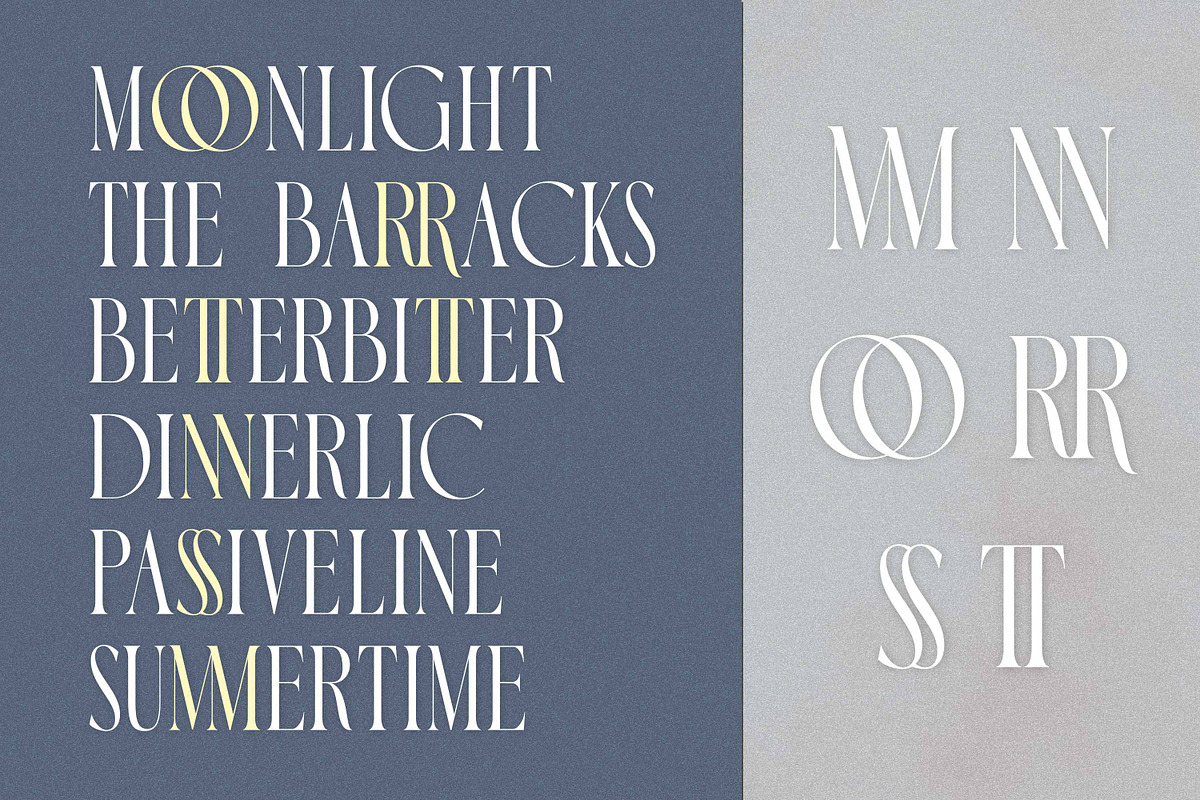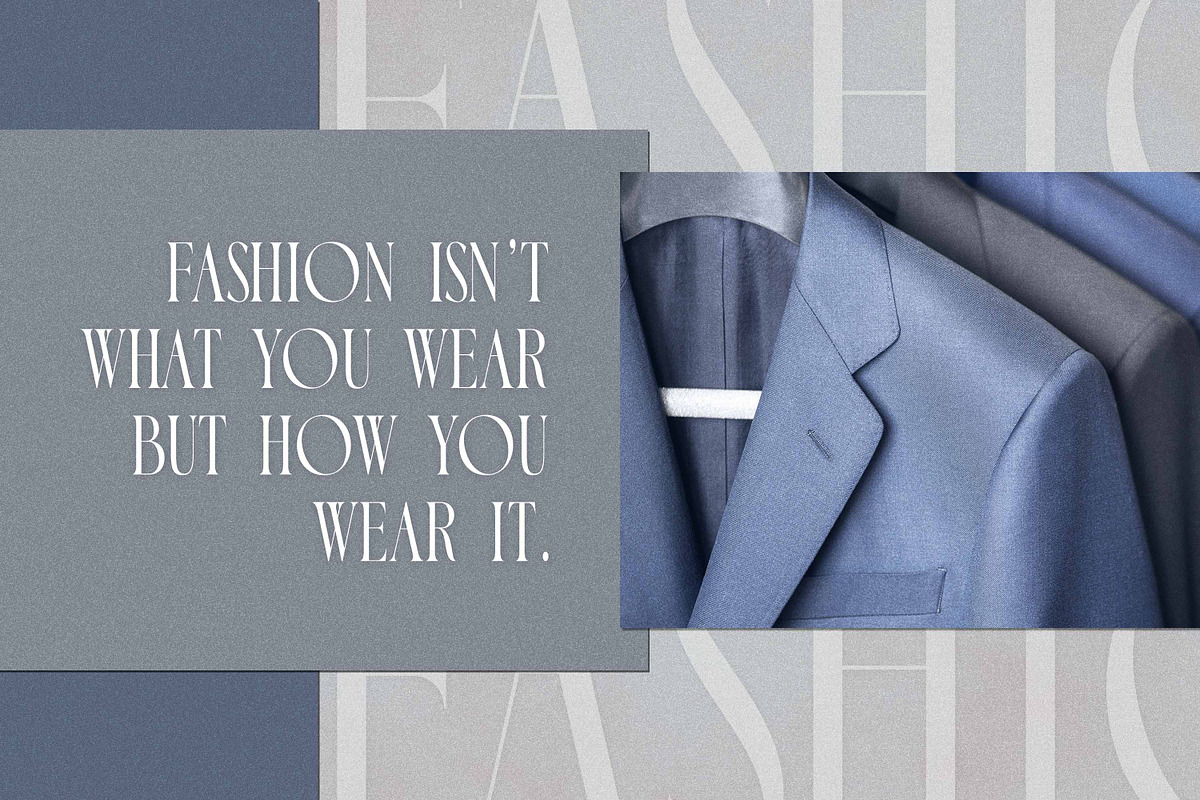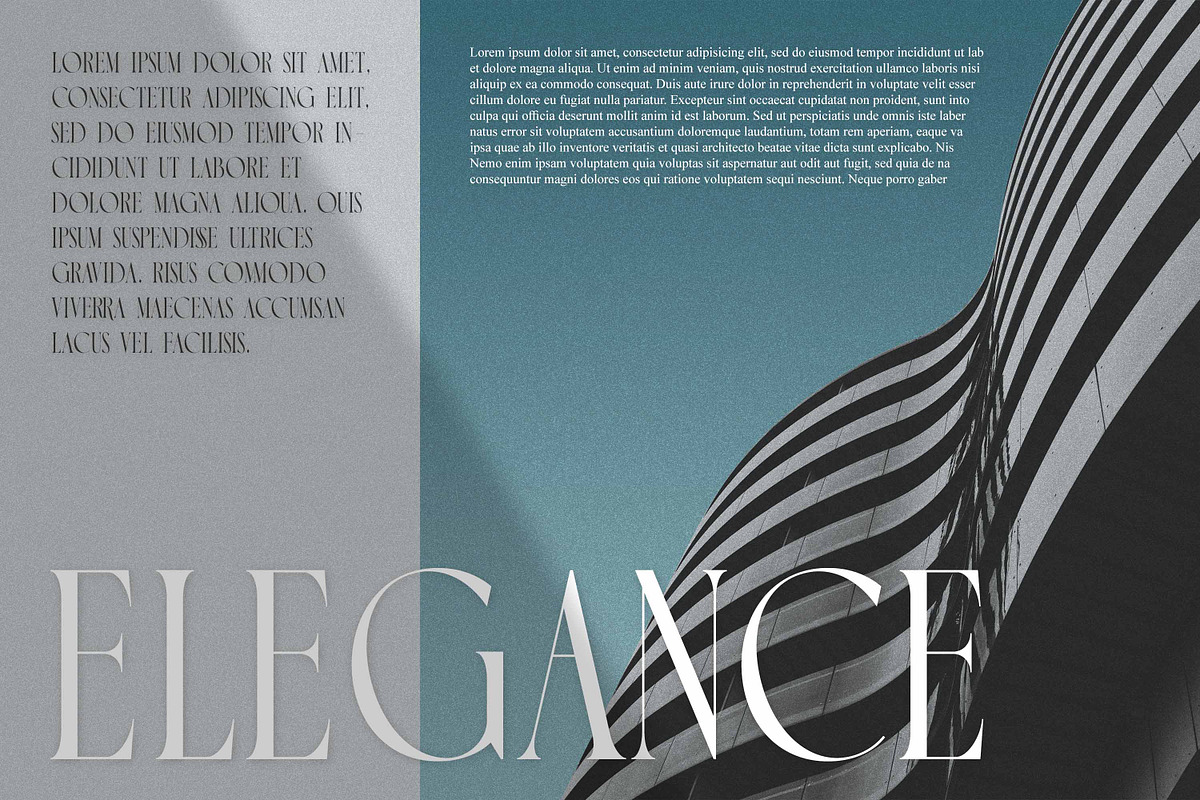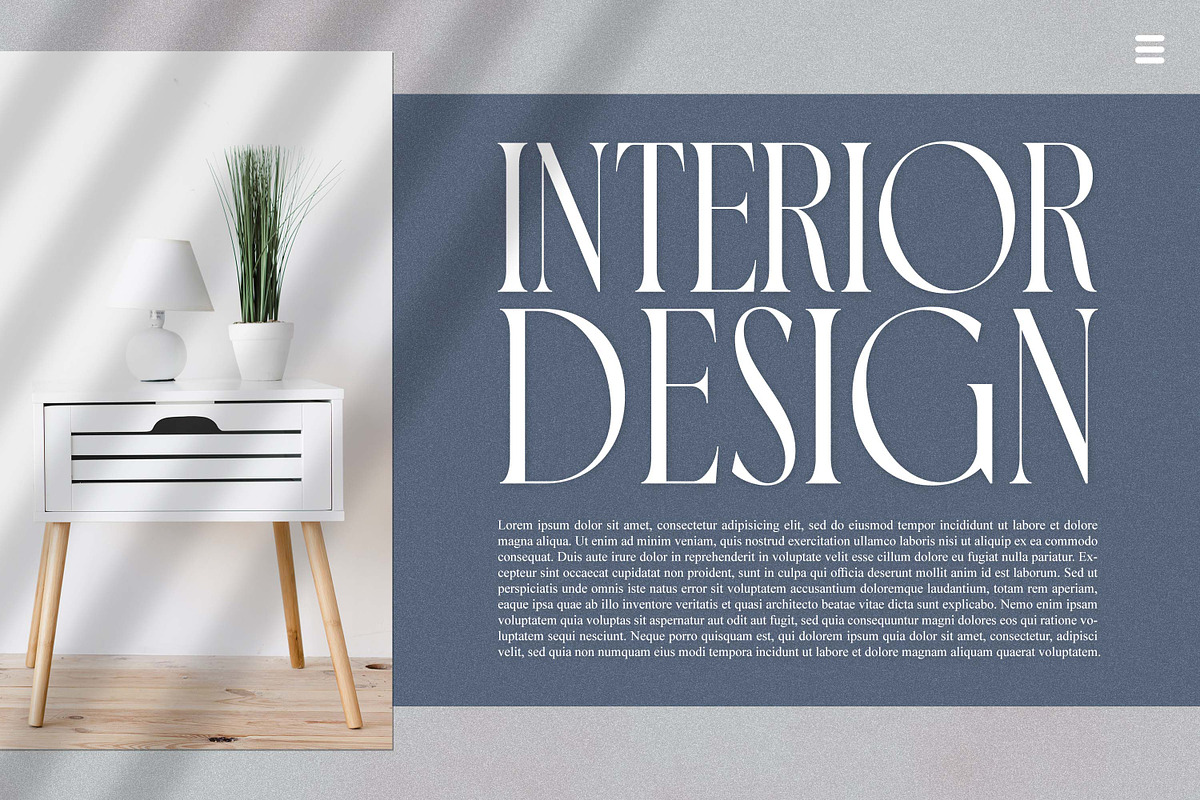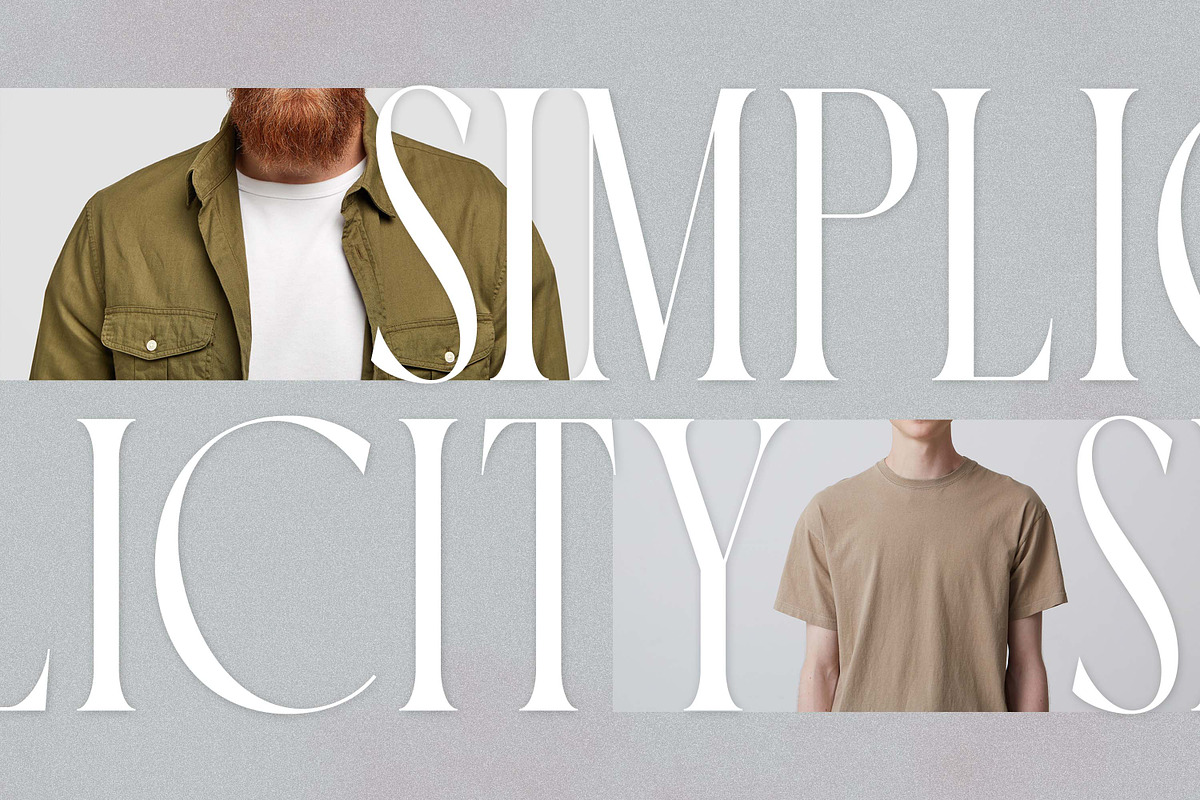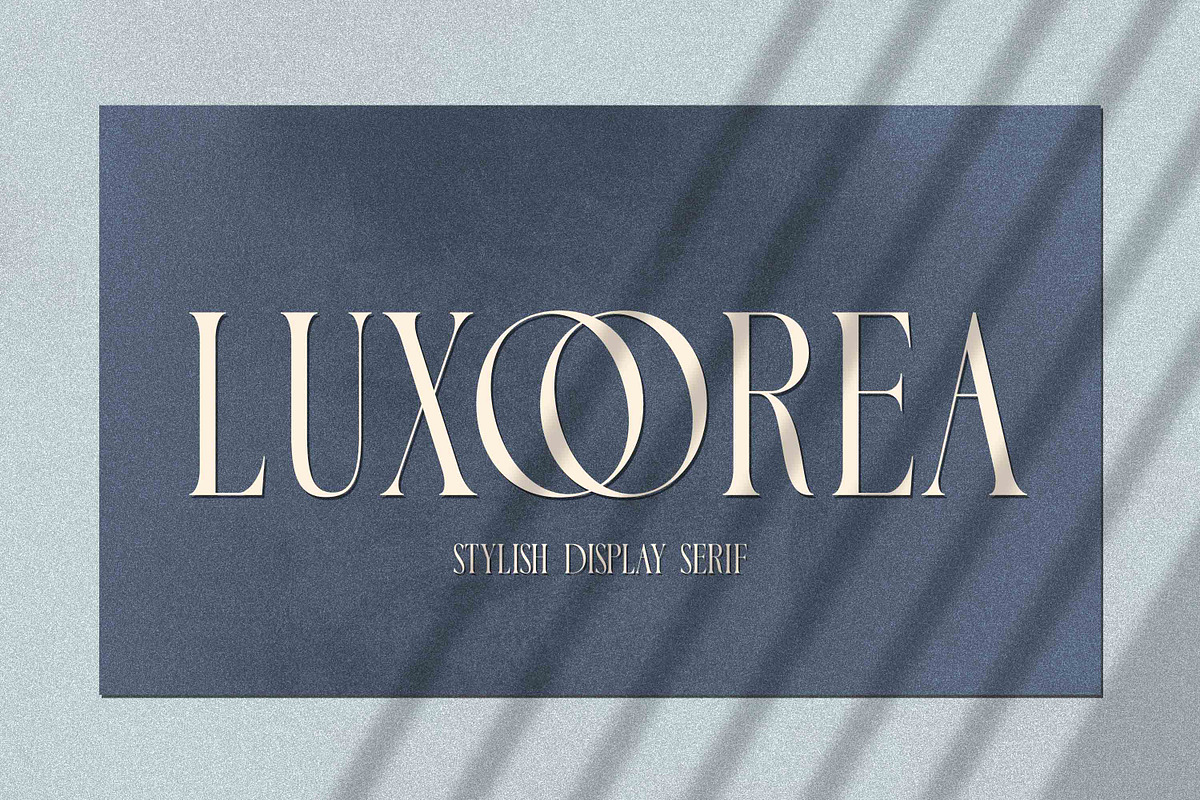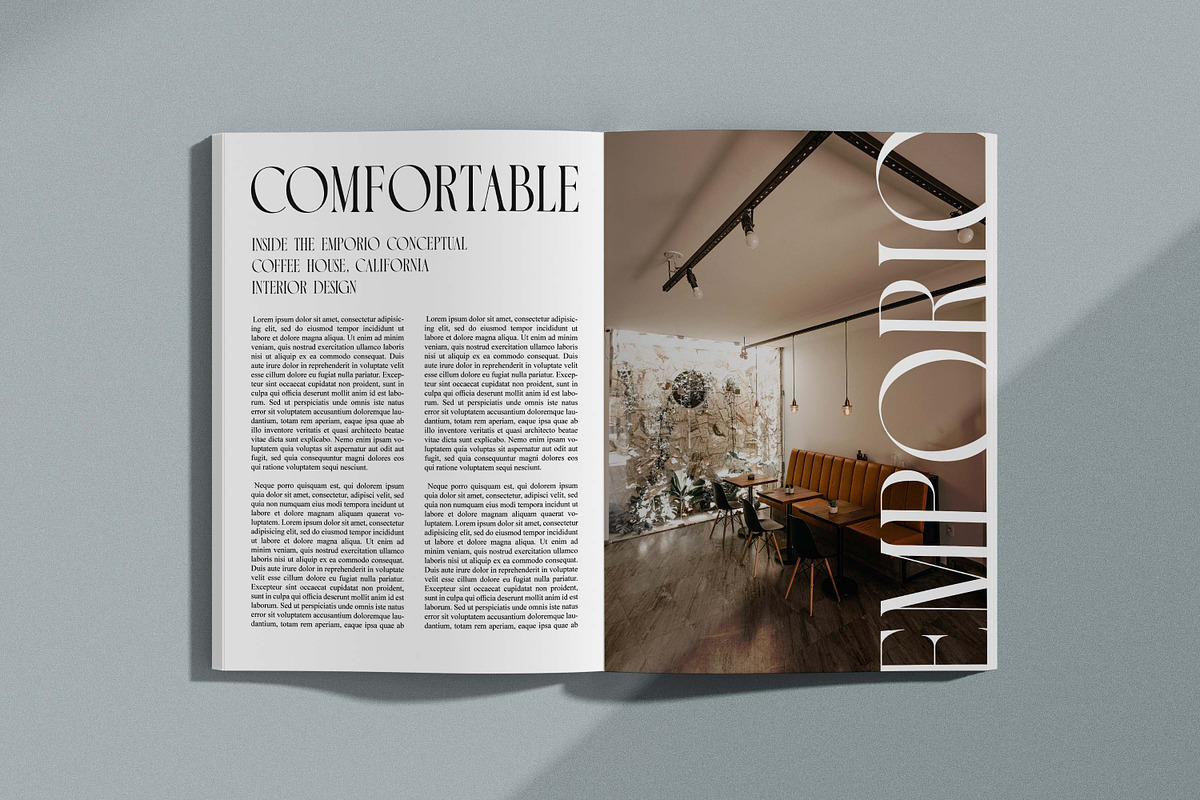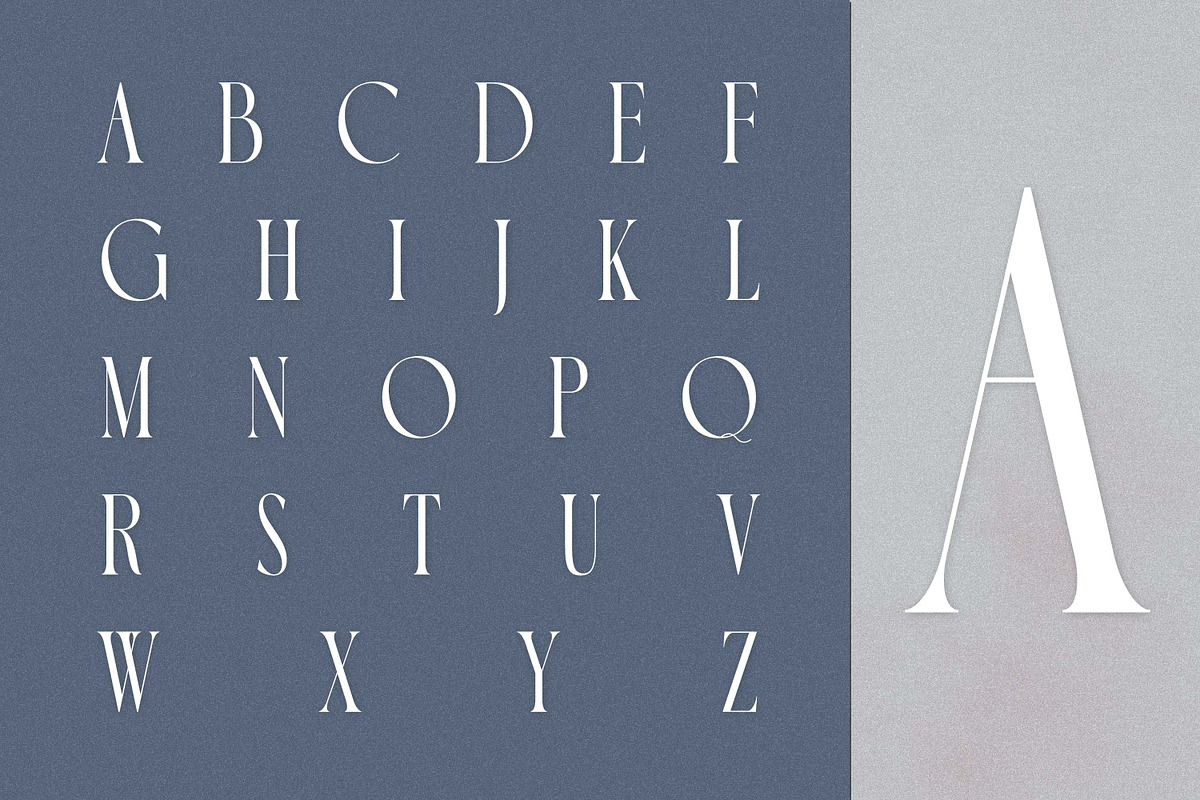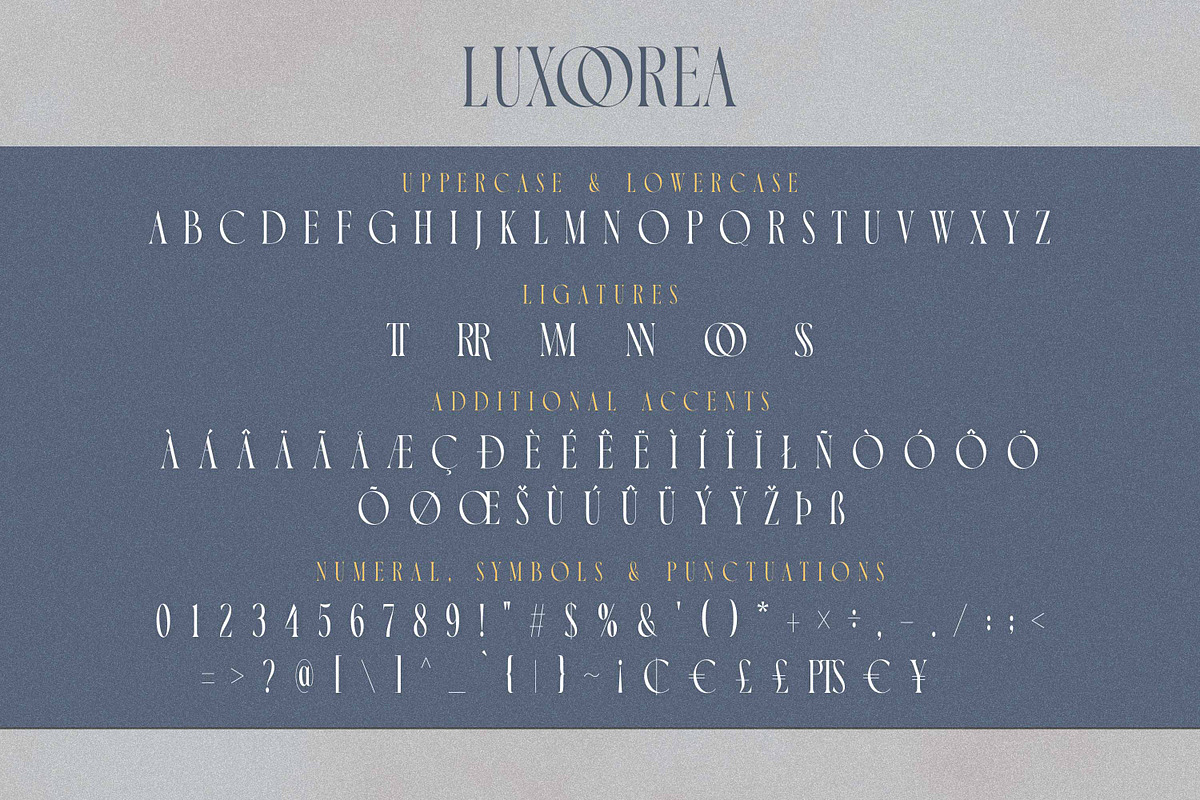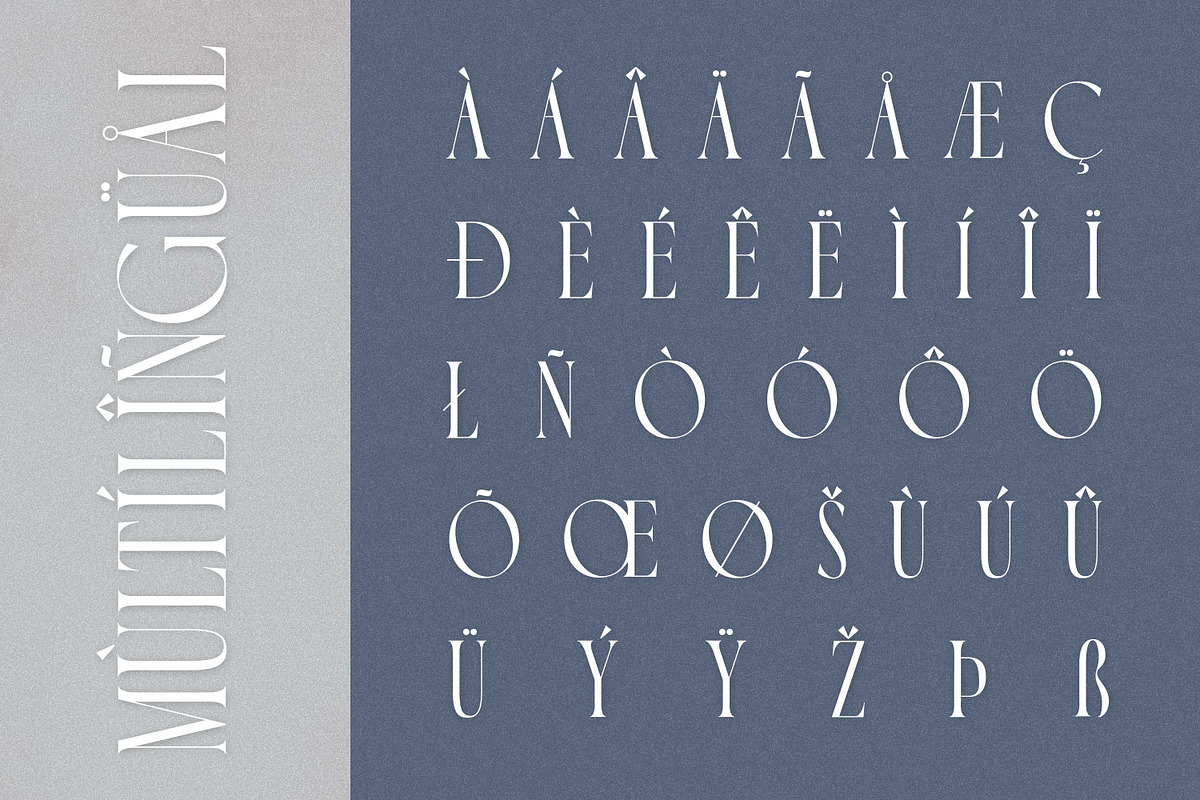
Luxoorea - Stylish Display Serif
Introducing Luxoorea - Stylish Display Serif inspired by the famous minimalist logo perfect for the purposes of designing templates, brochures, videos, advertising branding, logos and more.